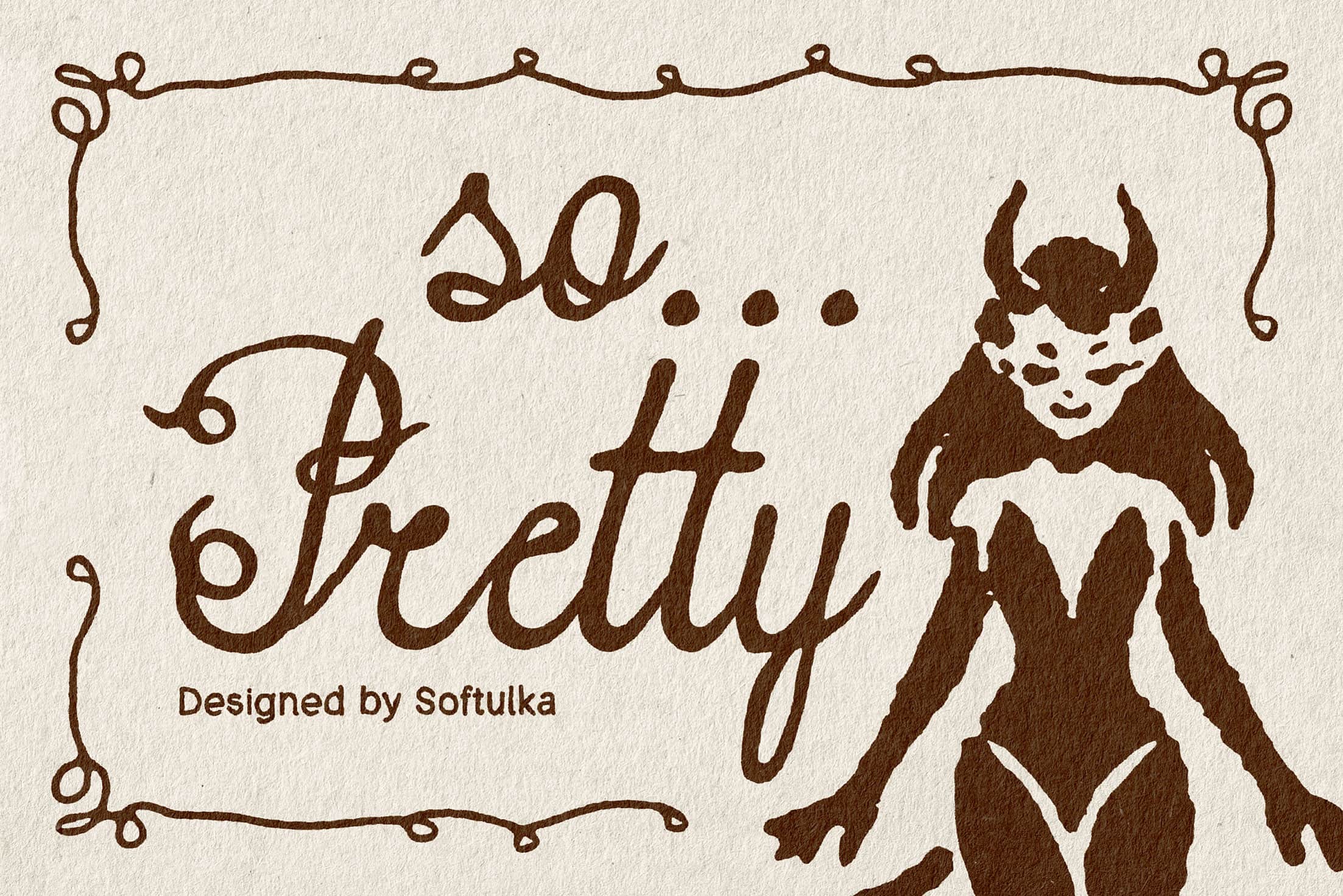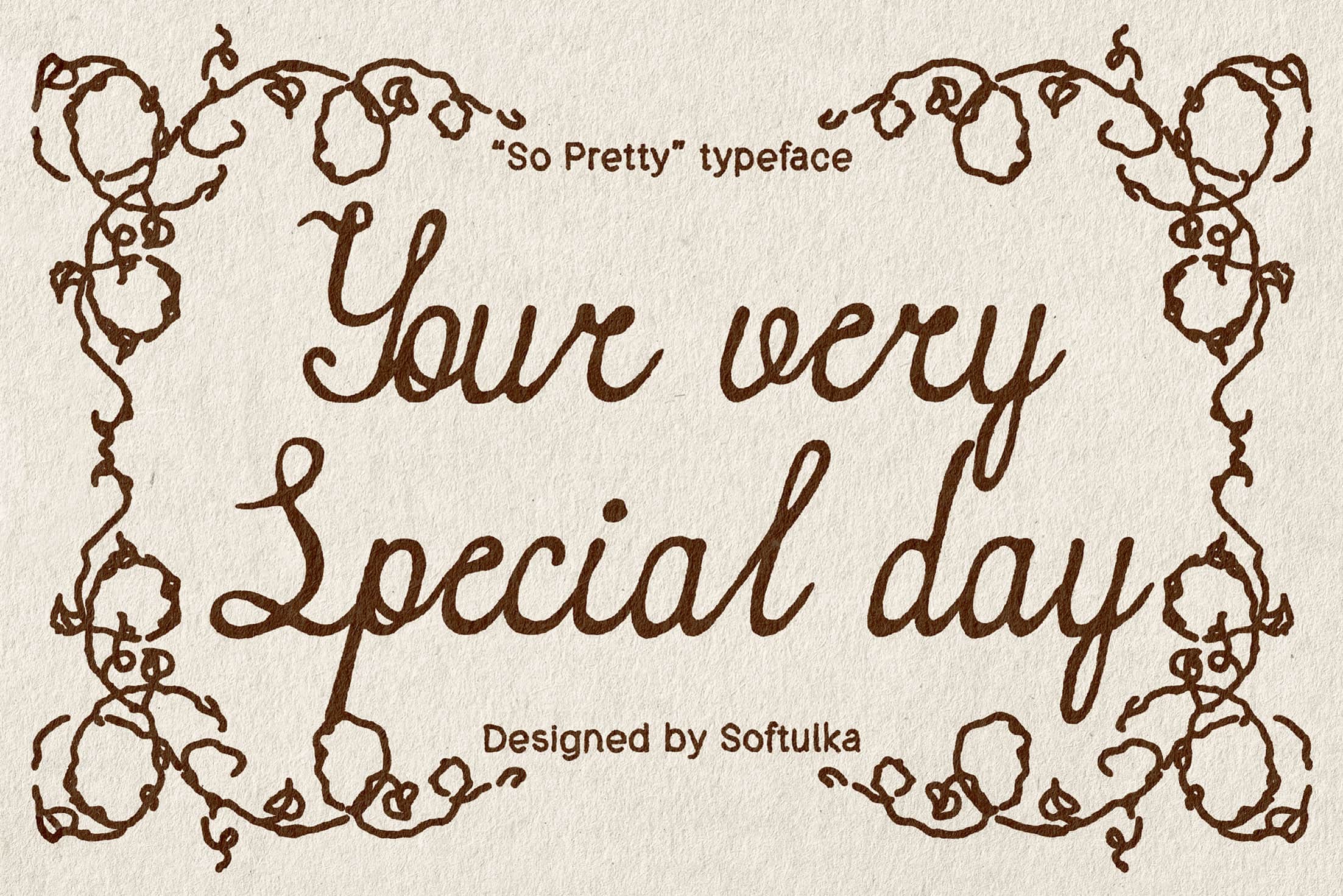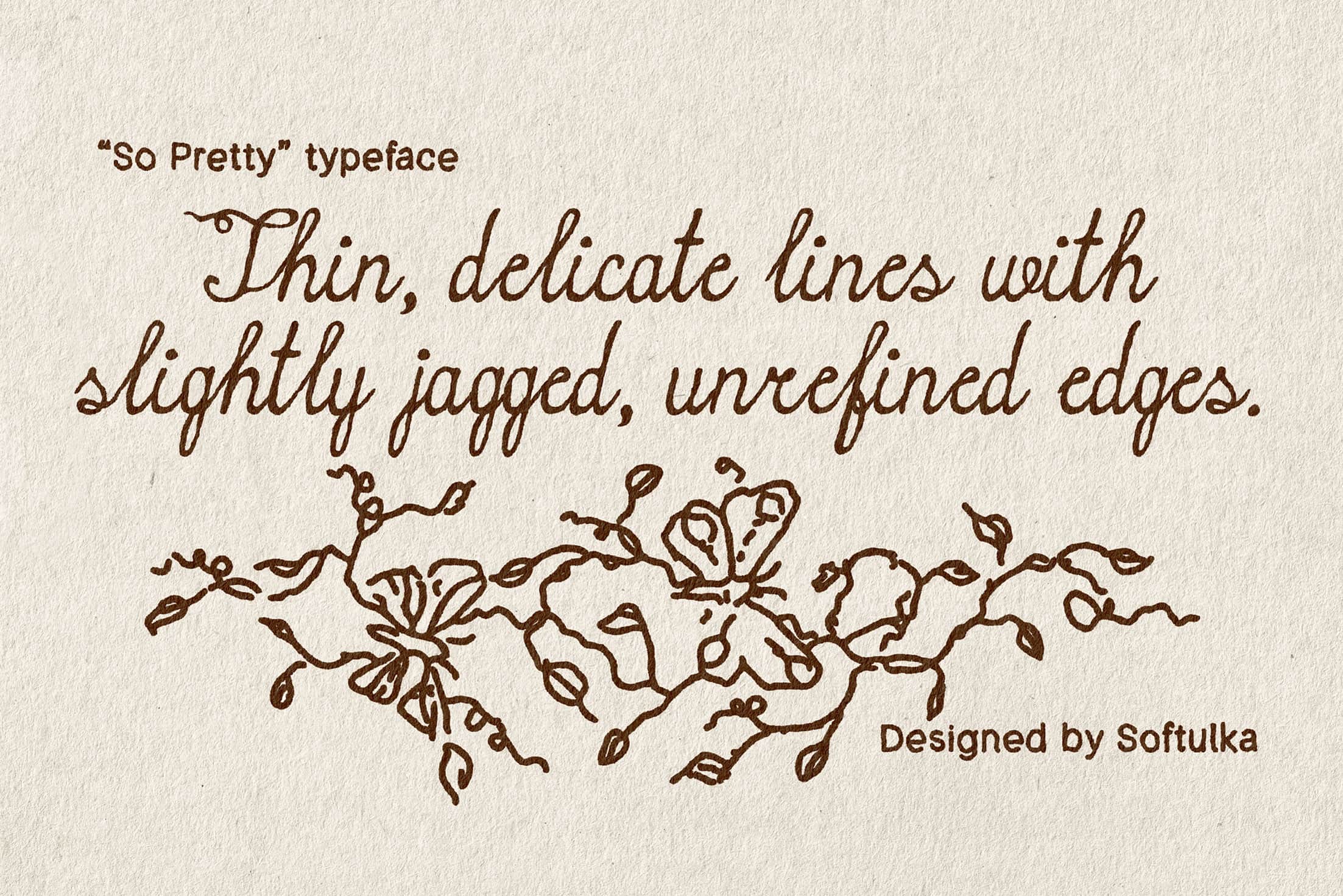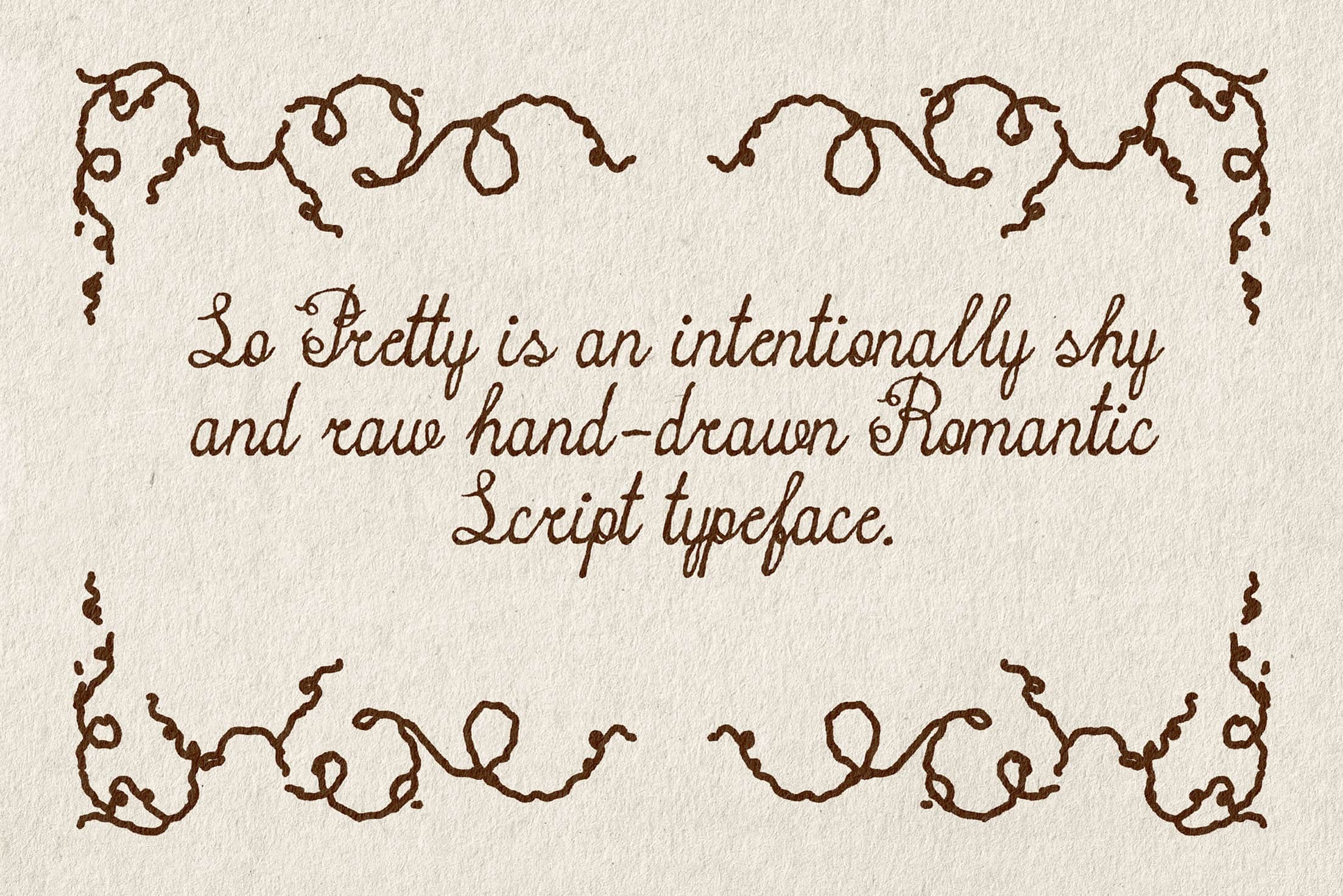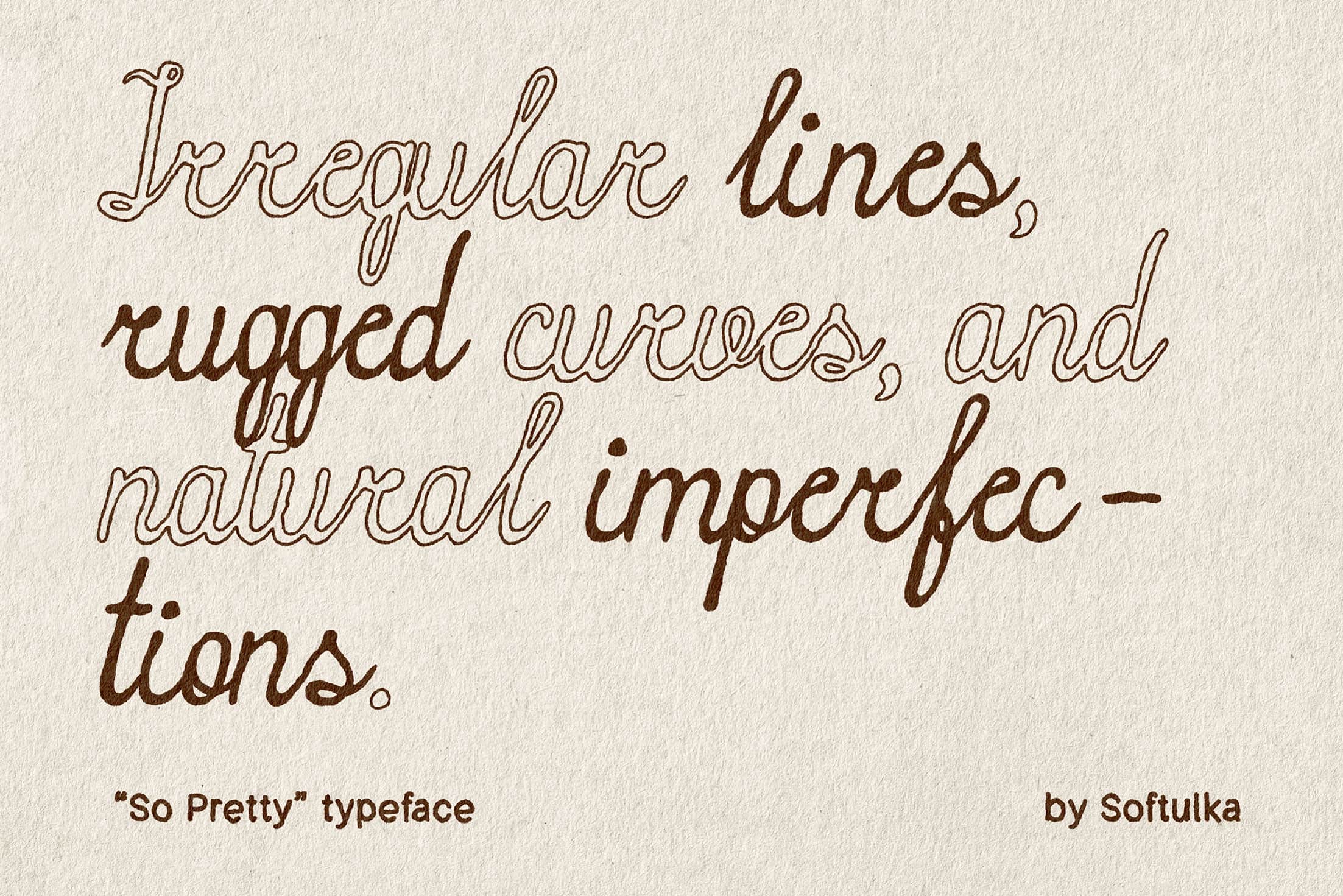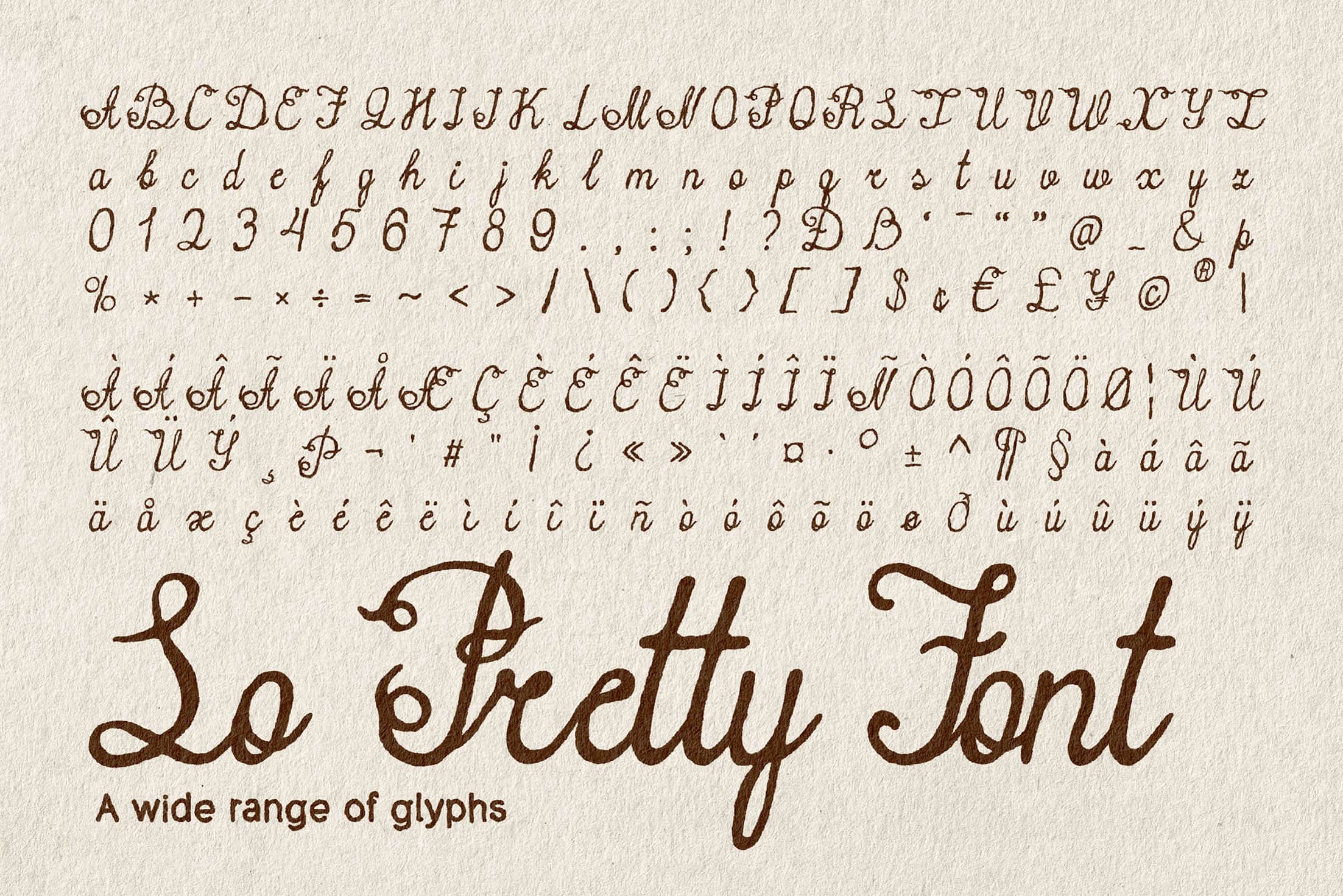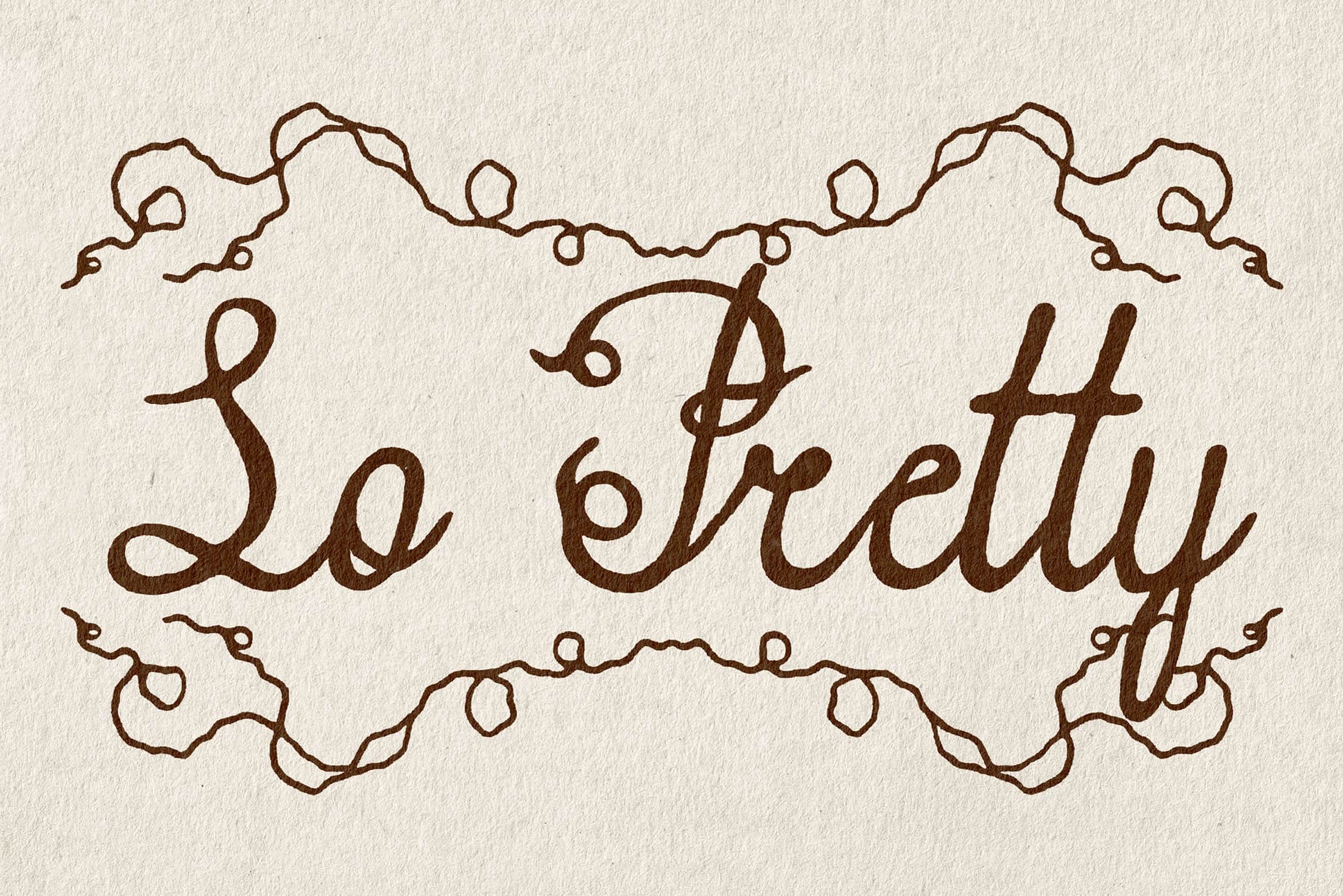
So Pretty Typeface
So Pretty is an intentionally shy and raw hand-drawn Romantic Script Typeface. It features thin, delicate lines with slightly jagged, unrefined edges that create a vulnerable, human feel. This font balances a rough, "imperfect" texture with a gentle, airy flow, making it ideal for intimate editorial designs, moody packaging, and branding that seeks an honest, handcrafted aesthetic over digital perfection.
Designed for expressive and emotional typography, So Pretty brings a subtle, personal tone to your layouts. Its light structure and irregular details create a soft rhythm that feels spontaneous and authentic, as if written by hand.
Ideal for editorial layouts, beauty and fashion branding, album artwork, and poetic visual identities, this typeface adds a quiet, refined character to both print and digital projects.